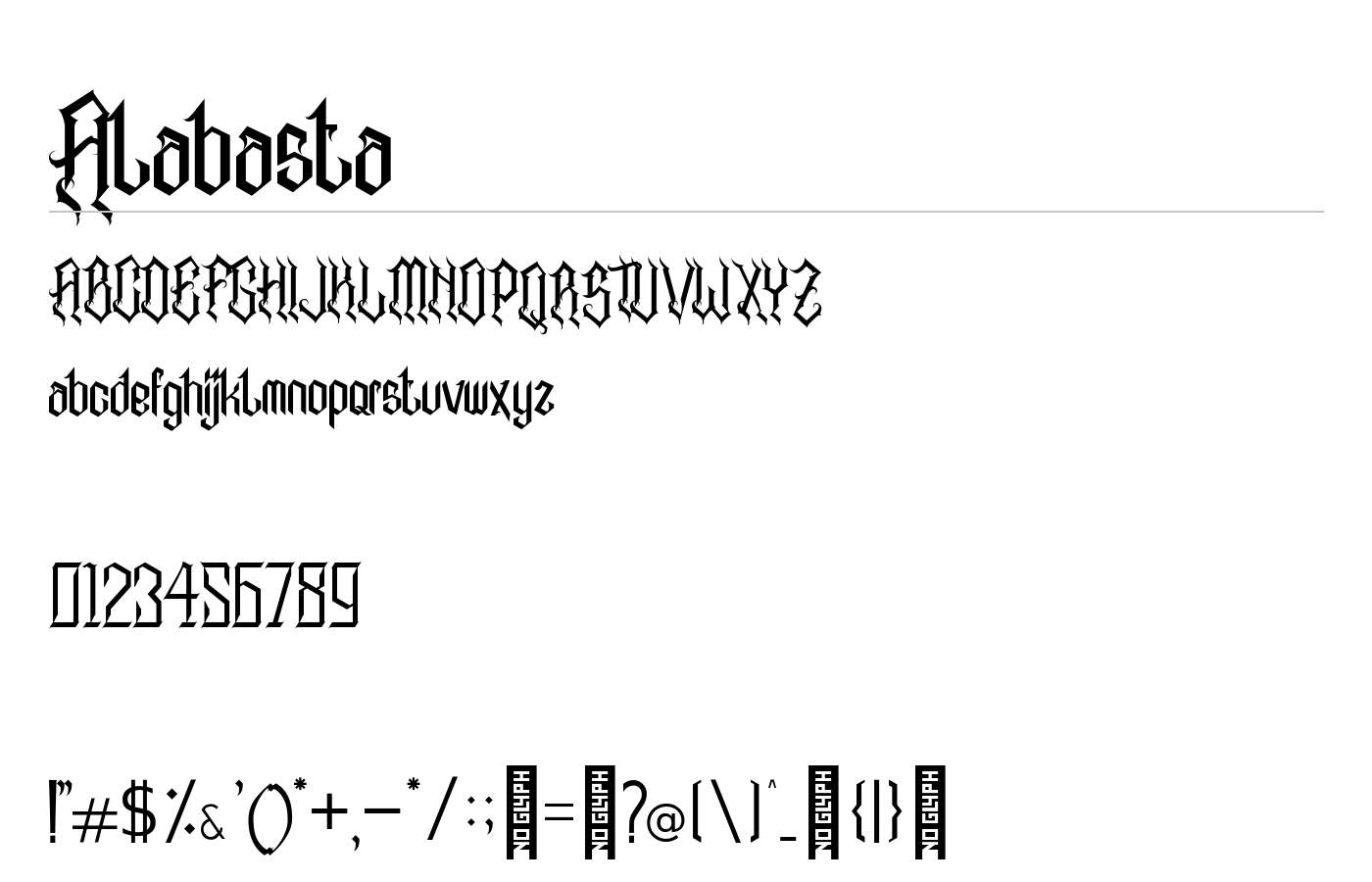
Alabasta is a bold blackletter-style font with sharp, angular strokes and a condensed structure that gives it a distinctive gothic and medieval feel. Its high contrast and ornate details make it well-suited for dramatic headlines, logos, or designs seeking a vintage, historical, or fantasy-inspired vibe. This font works best in display settings where its unique character can stand out and capture attention.
Alabasta Font
About Alabasta Font